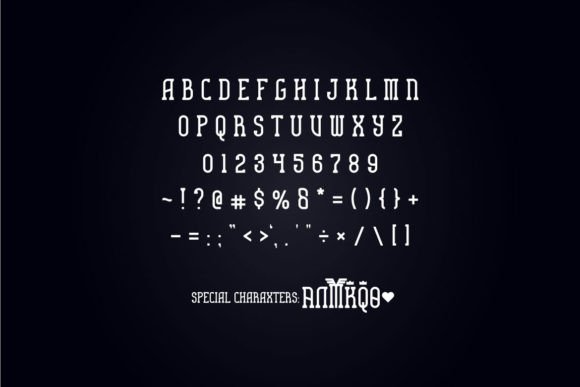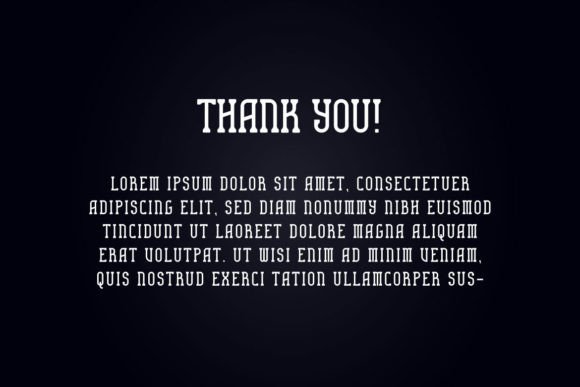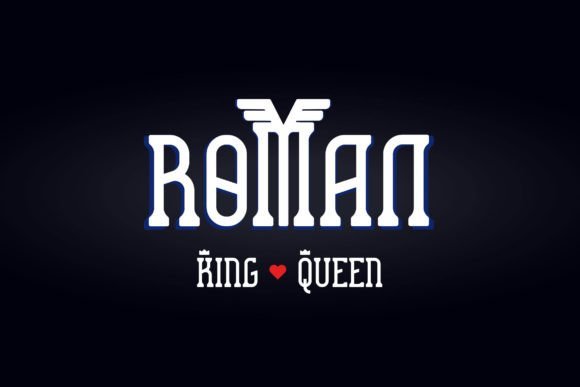
Introduction to Roman Font
Roman is a modern, clean, and eye-catching display font ideal for posters, cards, book titles, headlines, news, banners, flyers, stationery, and many more.
Key Features of Roman Font
Why Choose Roman Font?
Roman Font offers exceptional quality and versatility, making it a valuable addition to your design toolkit. Whether you’re creating for personal projects or commercial use, Roman Font delivers professional results.